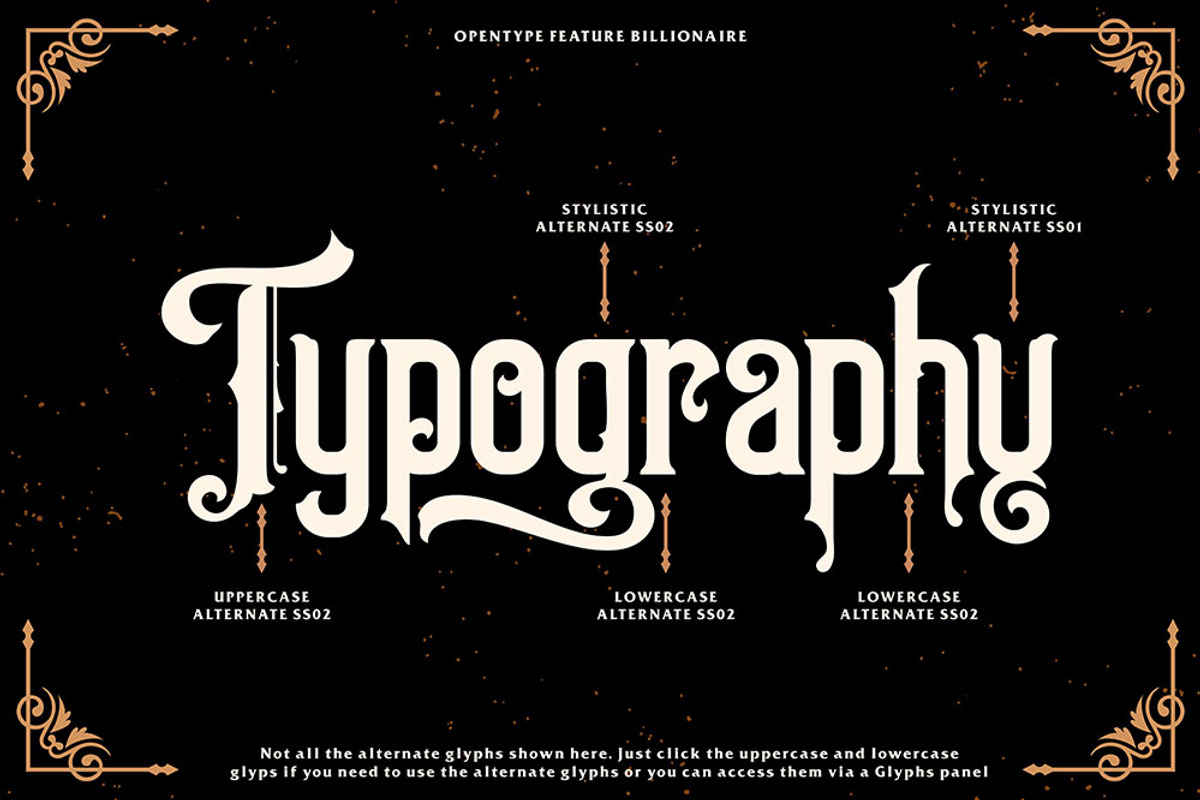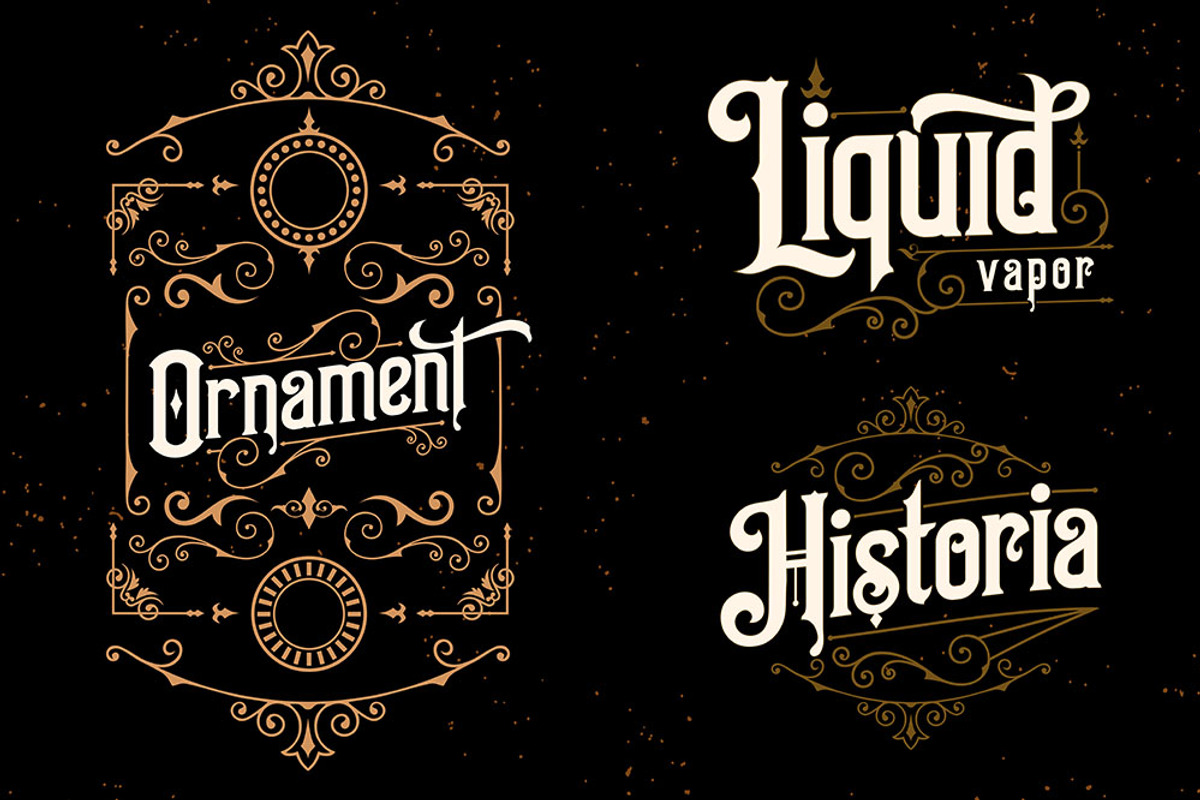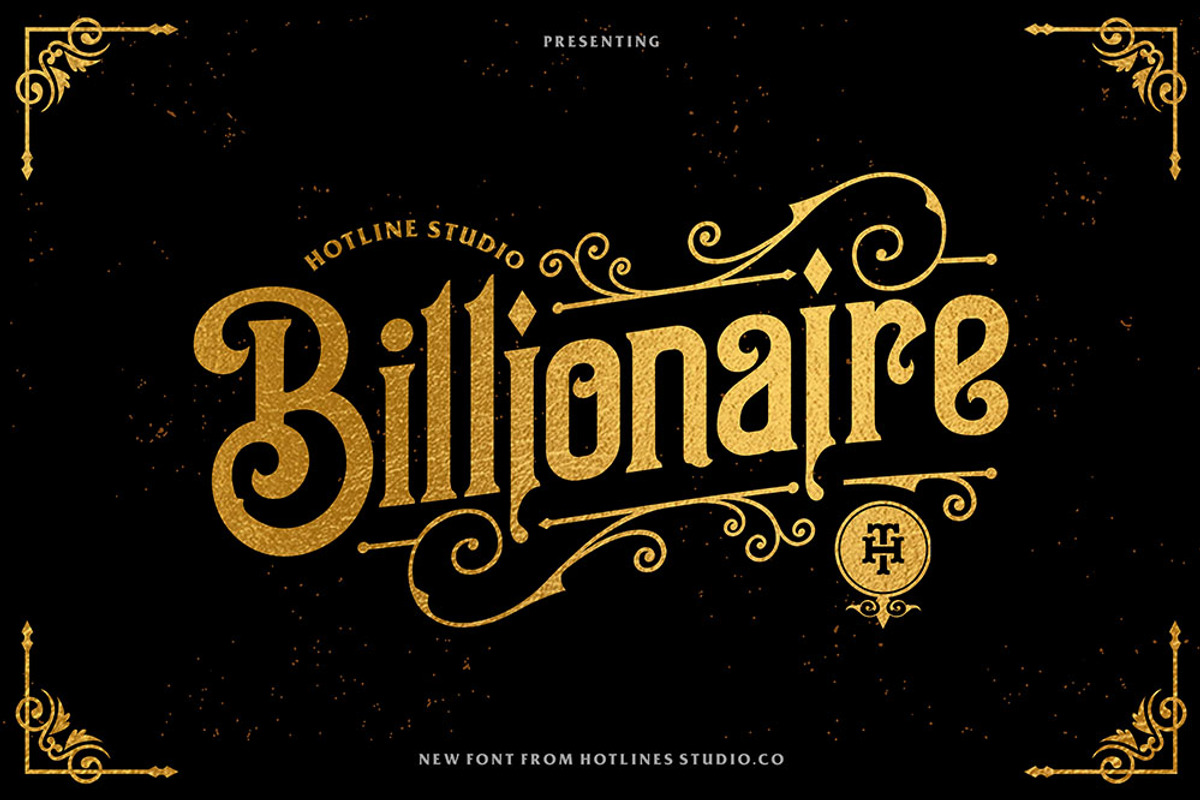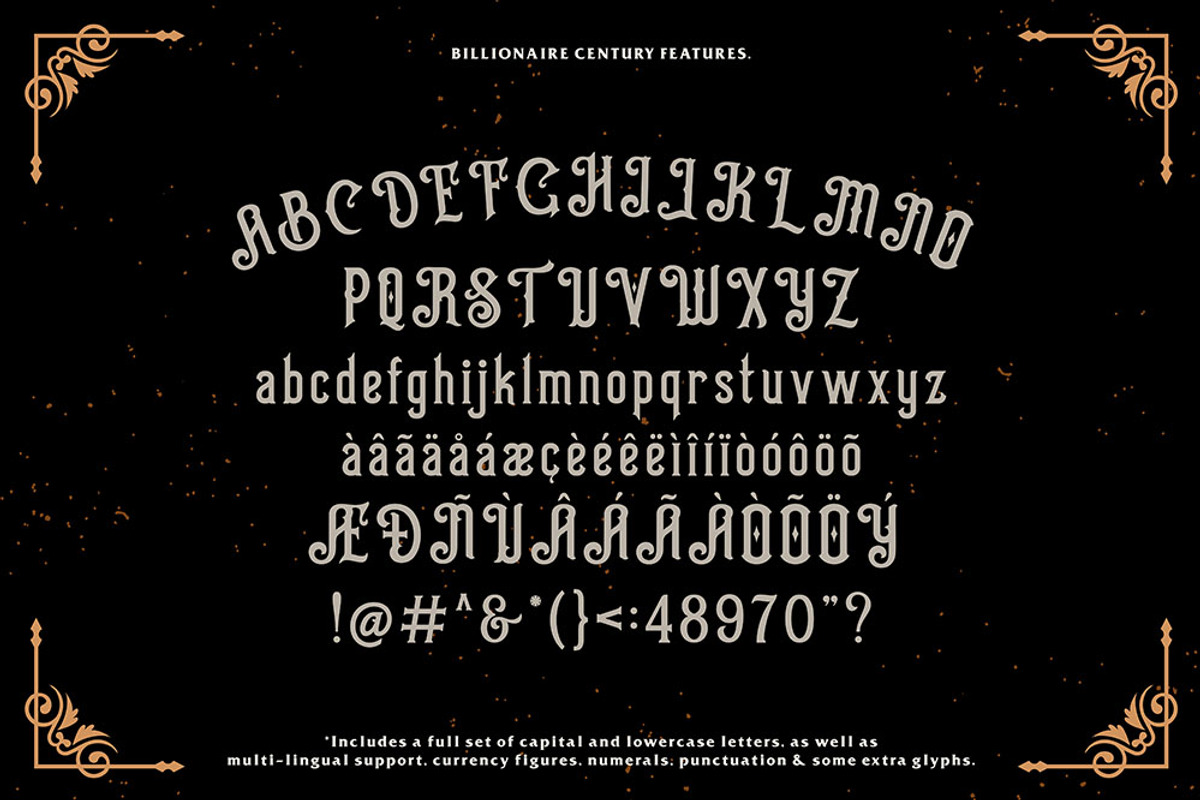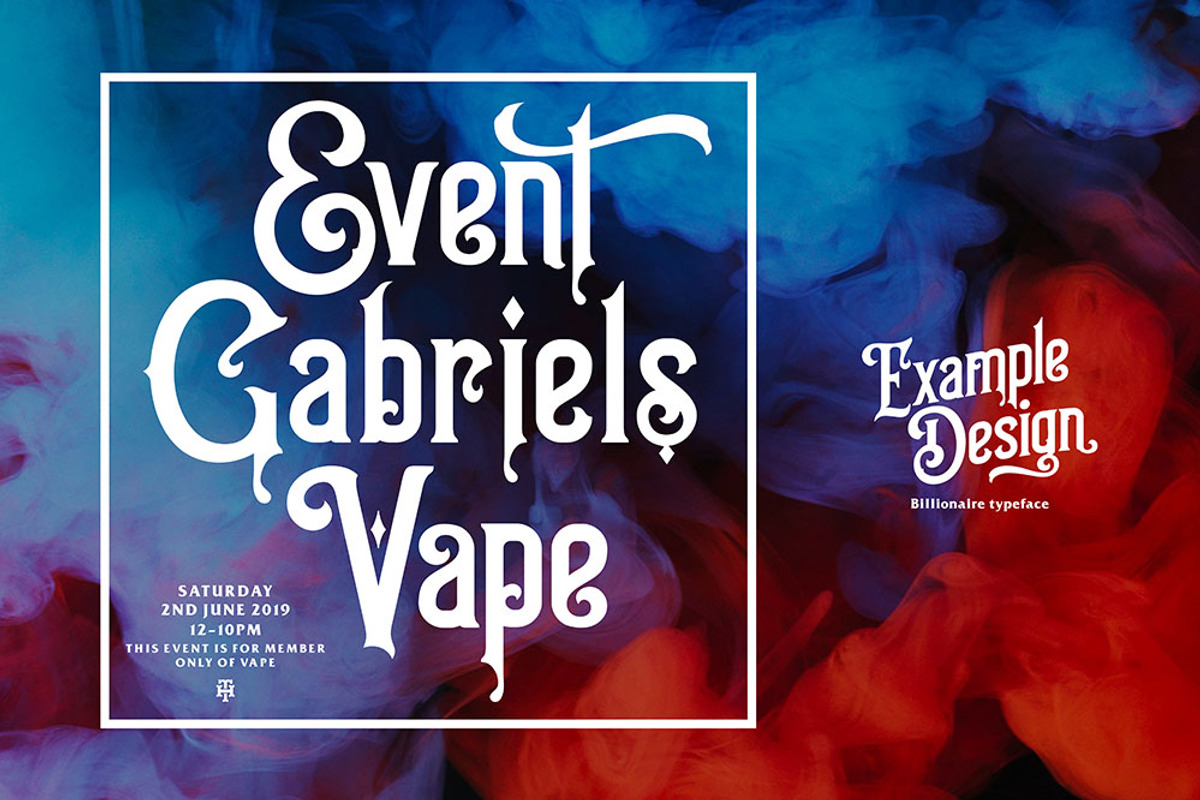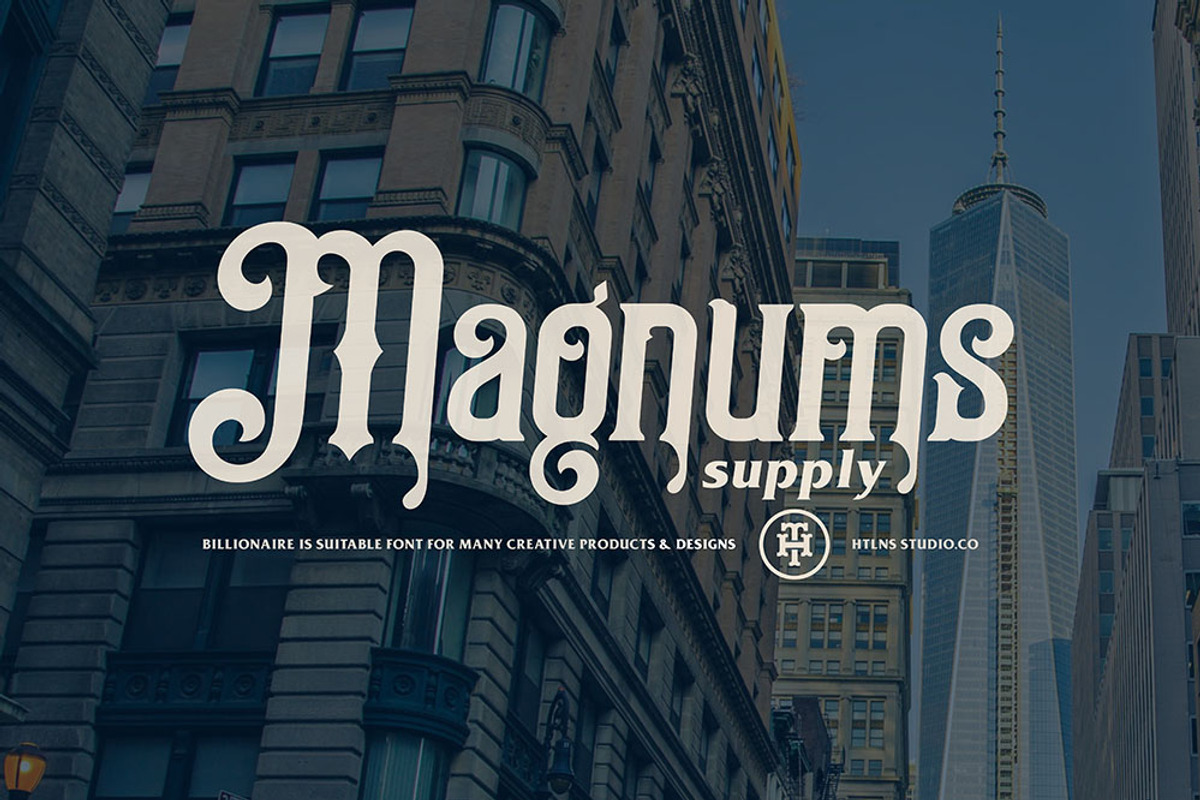
Billionaire typeface
Billionaire typeface is new font from HTLNS studio , new typeface with classy, elegant and vintage feel character set. To create the beautiful combination, just mix the uppercase and lowercase then mix with the alternative glyphs. The Billionaire typeface includes a full set of capital and lowercase letters, as well as multi-lingual support, currency figures, numerals, punctuation & some extra glyphs. Bundling with vector bonus.
Billionaire typeface Ornament
Numerals & Punctuations (OpenType Standard)
Accents (Multilingual characters)
Billionaire typeface is suitable font for many creative products & designs.
- The Billionaire typeface includes a full set of capital and lowercase letters, as well as multi-lingual support, currency figures, numerals,
- Character Set A-Z
- Billionaire typeface is suitable font for many creative products & designs.
Why Billionaire typeface is worth a look
Billionaire typeface by HTLNS.co fits naturally into Branding, posters, packaging, typography.